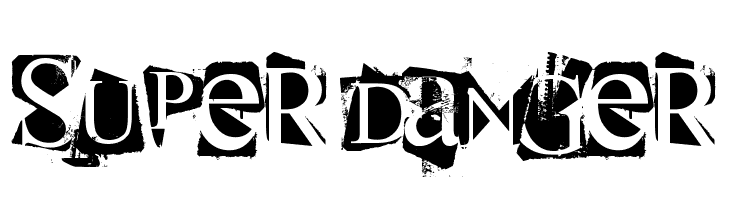
A playful, hand-drawn style font with tall, narrow characters and medium contrast.
A bold, dynamic brush script font with an energetic, expressive style.
A bold, expressive script font with flowing, interconnected letterforms.
A bold, condensed, and geometric font with a strong visual impact.
A flowing, cursive script font with elegant, handwritten characteristics.
A bold, expanded font with blocky, geometric shapes for a strong visual impact.
A bold, brush-style font with dynamic strokes and a modern, artistic flair.
A modern, geometric font with interconnected, flowing lines and a sleek, futuristic style.
A playful, rounded font with smooth curves and consistent stroke width.
A playful, handwritten font with a casual and friendly style.
A raw, expressive font with a hand-drawn, textured appearance.
A futuristic, engraved font with geometric shapes and layered outlines.
An abstract, geometric font with artistic and symbolic character designs.
An ornate Blackletter font with gothic and medieval influences.
A bold, 3D font with a vintage, textured design and shadow effect.
A modern, geometric sans-serif font with a clean and minimalistic design.
A whimsical, hand-drawn font with tall, narrow characters and a playful style.
A bold, blocky font with a digital, pixelated style enclosed in squares.
A bold, hand-painted style font with an organic, textured appearance.
A lively and dynamic handwritten font with playful, fluid strokes.
A bold, italic font with a dynamic and elegant style.
A playful, casual handwritten font with smooth, flowing lines and consistent stroke thickness.
A lively and elegant script font with fluid, cursive strokes and graceful curves.
A bold, twisted, and staggered font with a playful, chaotic style.
A futuristic, geometric, and condensed font with bold, angular characters.
A playful, handwritten font with smooth curves and a friendly appearance.
A decorative font inspired by bicycle and mechanical parts, ideal for thematic displays.
A whimsical, handwritten font with tall, narrow letters and a playful style.
A bold, Gothic-inspired font with high contrast and intricate details.
A dynamic and expressive handwritten script font with fluid and cursive letterforms.
An elegant script font with flowing, cursive letterforms and a refined aesthetic.
A bold, geometric font with a playful and modern design.